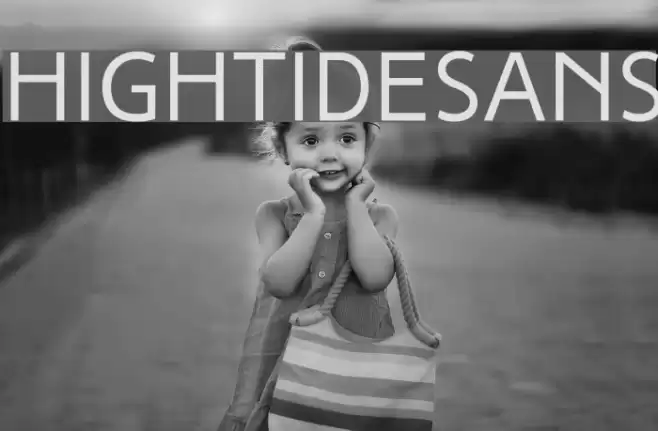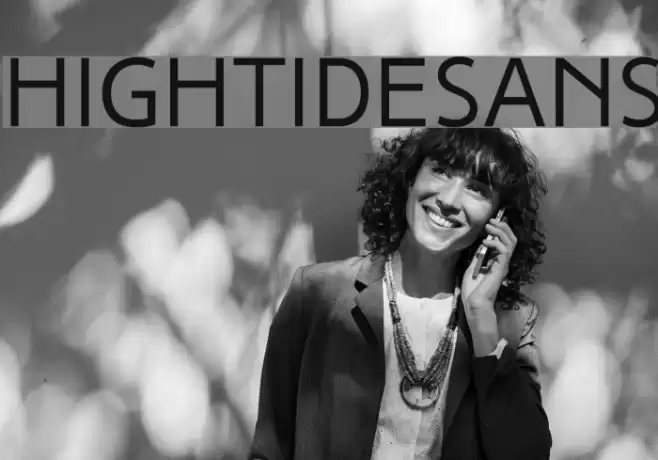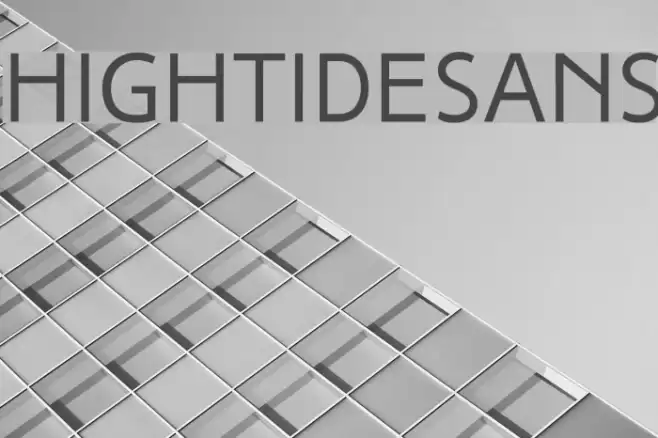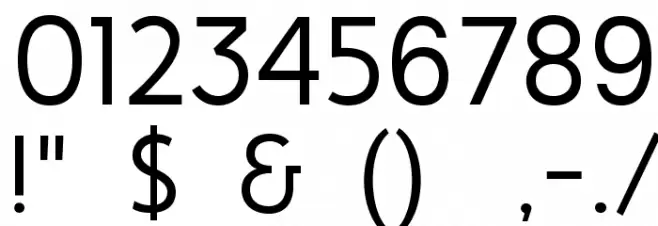
HighTideSans Font
HighTideSans Description
This font features a clean and modern sans-serif design with a focus on simplicity and readability. The characters are evenly spaced, providing a balanced and harmonious appearance. The strokes are consistent in thickness, offering a medium contrast that enhances legibility without sacrificing style. The overall look is sleek and professional, making it suitable for a variety of applications. Its geometric shapes and uniform structure give it a contemporary feel, while the absence of serifs ensures a straightforward and uncluttered presentation.
A clean, modern sans-serif font with medium contrast and balanced spacing from Uncategorized fonts.
- Proposed Projects: Ideal for branding, corporate communications, web design, and editorial layouts.